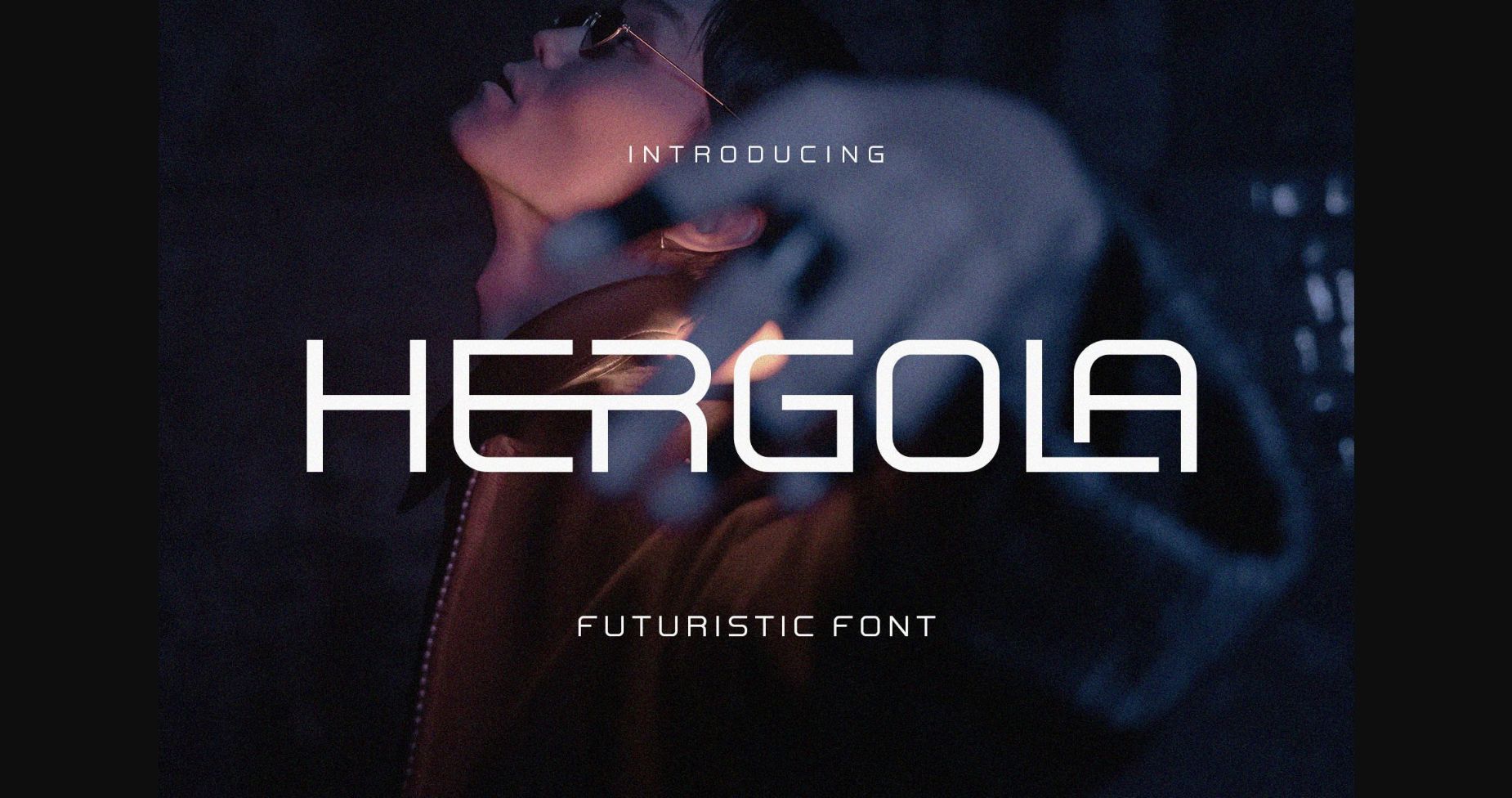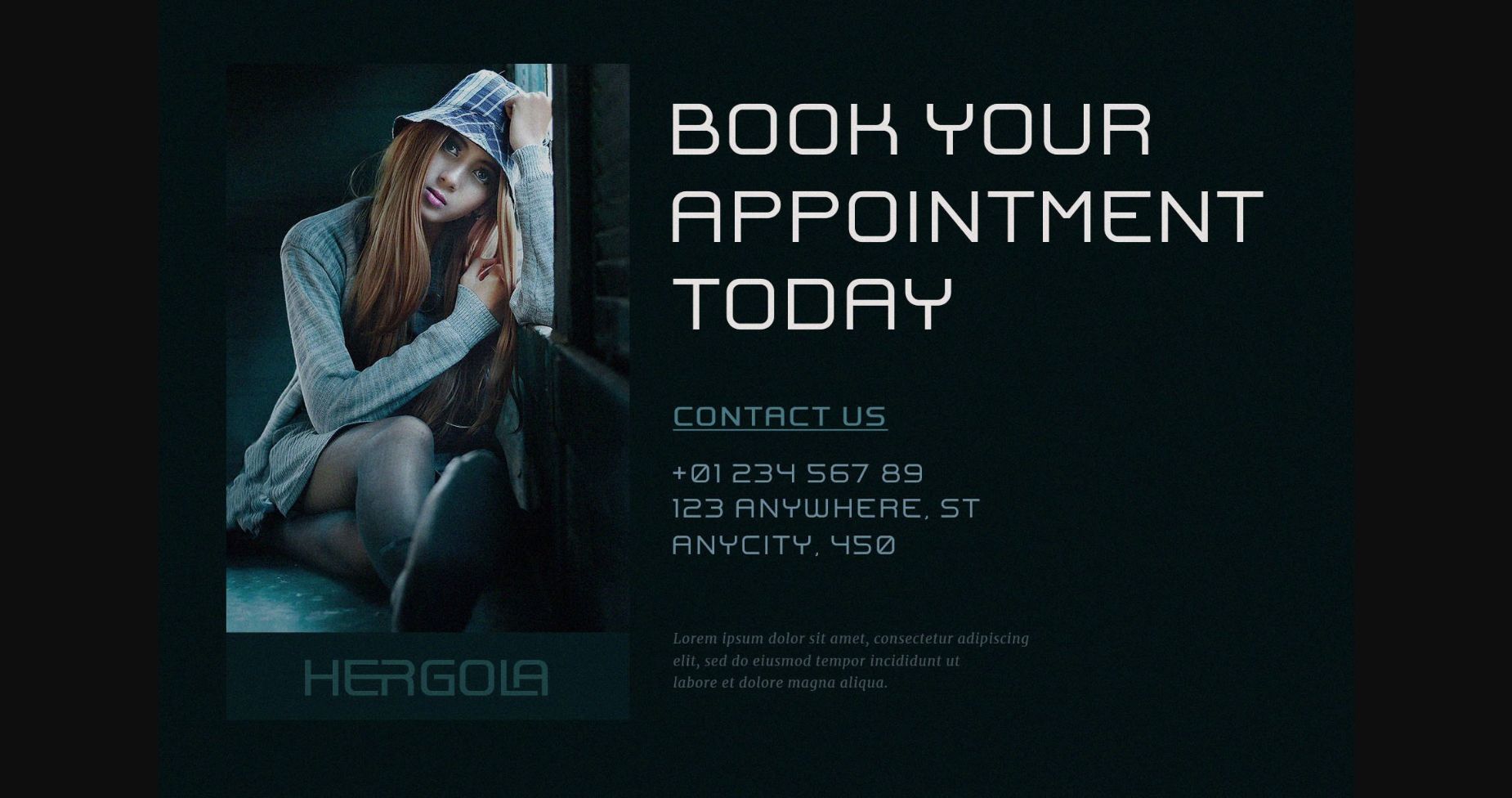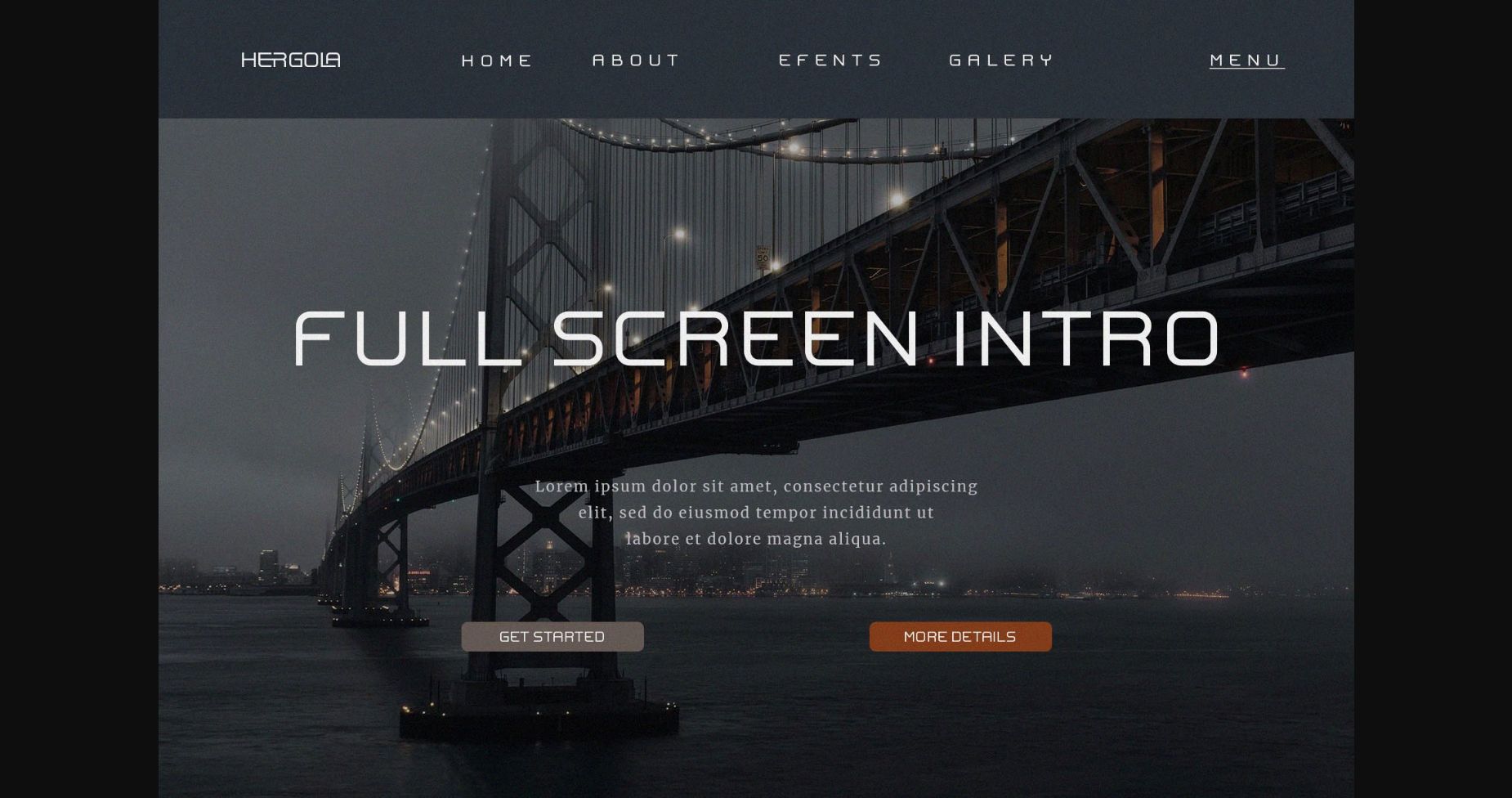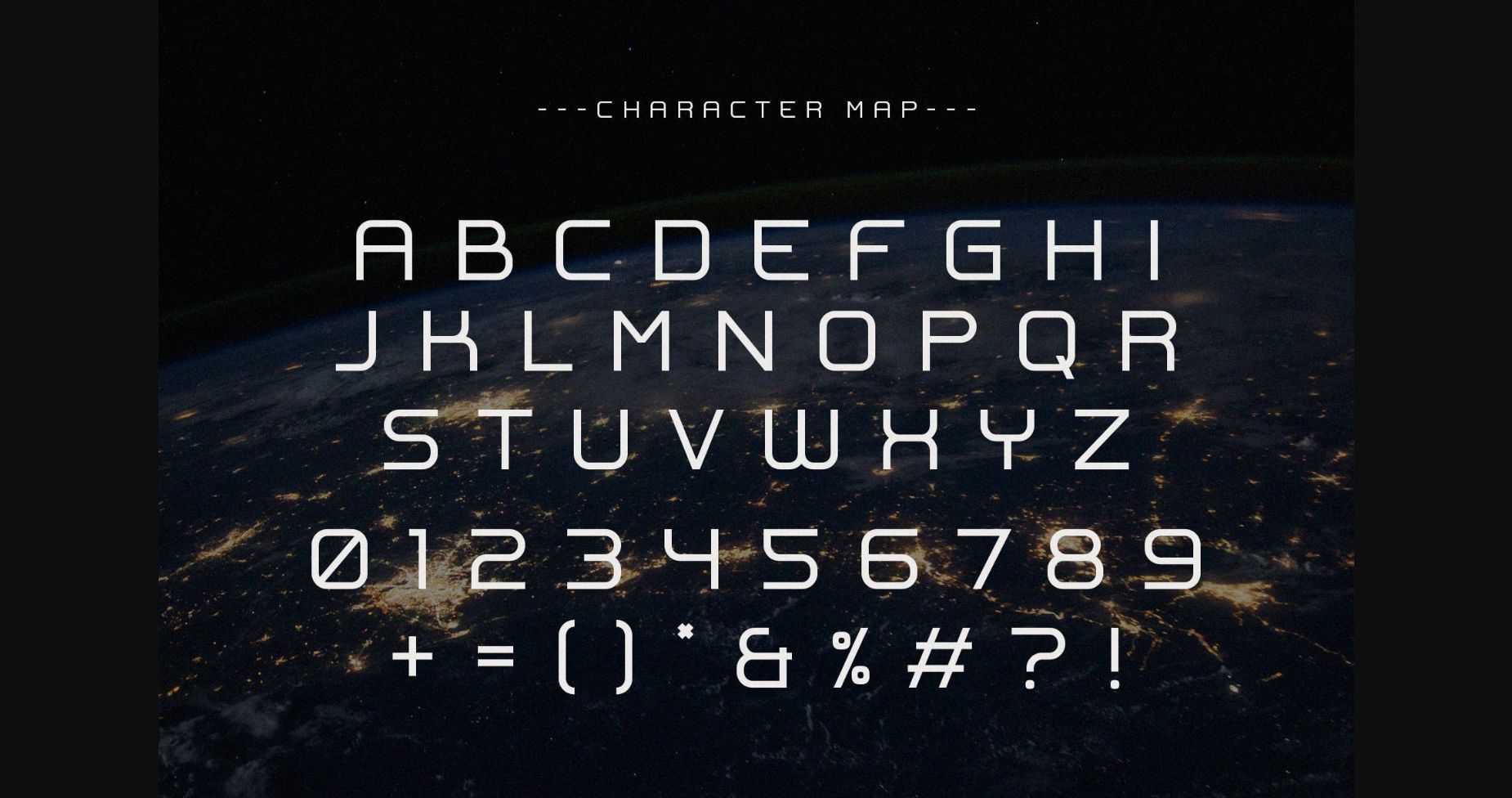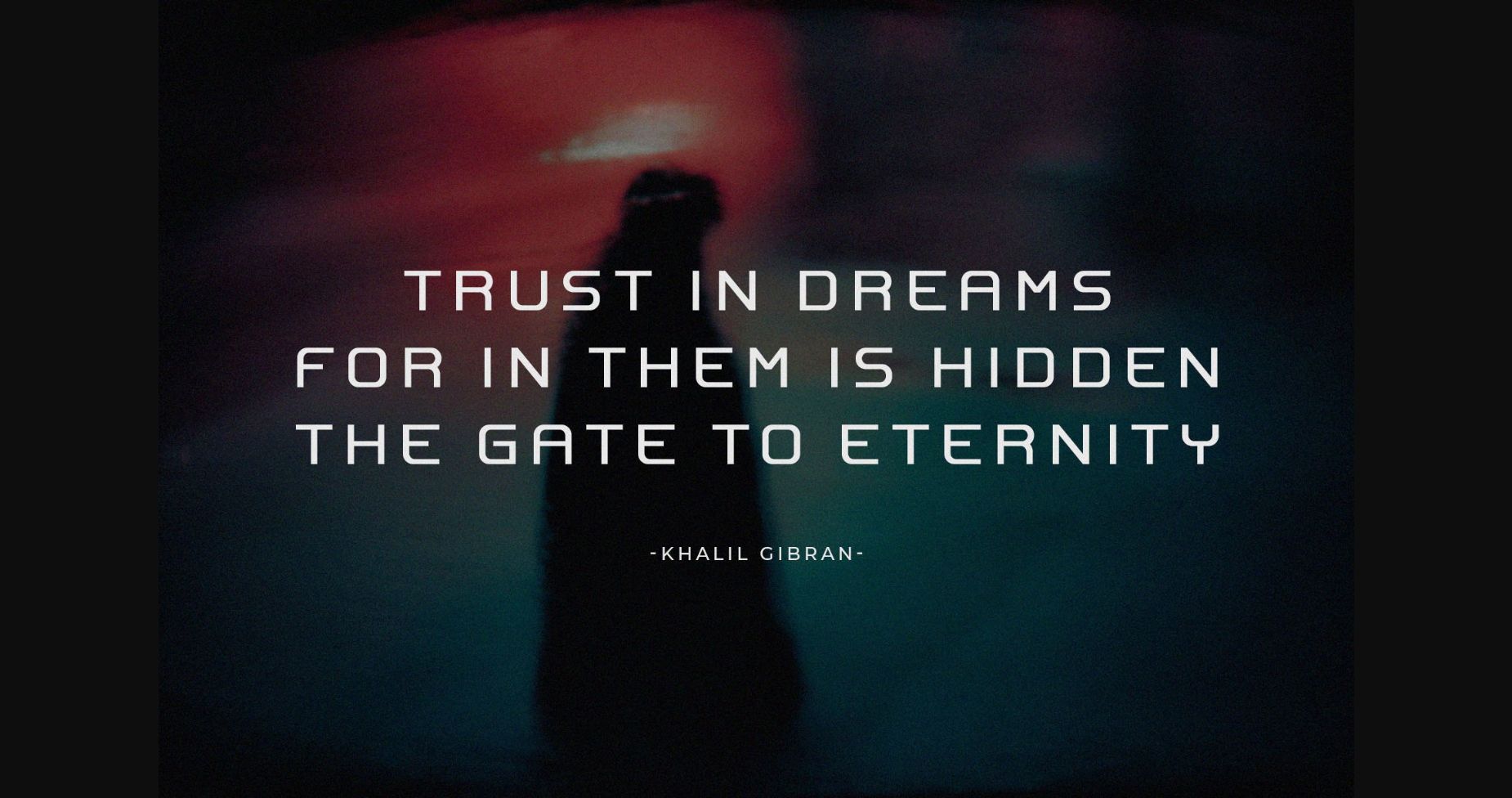
HomeSans Serif FontsHergola Font Sans Serif Fonts Hergola Font FacebookXPinterestWhatsApp 1 of 7 ... Hergola Font Poster 2... Hergola Font Poster 3... Hergola Font Poster 4... Hergola Font Poster 5... Hergola Font Poster 6... Hergola Font Poster 7... About Hergola Font Hergola is a modern and futuristic sans serif font. Add it to any of your creative projects, and it will seduce your audience with its style and form. DOWNLOAD NOW People also explored Donna Bodoni Baxter’s Slab Font Bright Sight Font Lastinger Font Sweethearts Font Cutyle Script Font Ramen Ichikaru Font Sublimation Font Parsley Font 265 0 TagsHergolaHergola Font Previous articleStorylona FontNext articleMonoprice Font LEAVE A REPLY Cancel reply Comment: Please enter your comment! Name:* Please enter your name here Email:* You have entered an incorrect email address! Please enter your email address here Website: Save my name, email, and website in this browser for the next time I comment. Personal Use Free Love Heart Personal Use Free Read more about this font Setta Personal Use Free Read more about this font The Winter Personal Use Free Read more about this font Propaniac Personal Use Free Read more about this font BLOG Free Fonts Risk: Why Free Fonts Can Be Dangerous for Designers Free Fonts Risk: Why Free Fonts Can Be Dangerous for Designers Using free fonts is a common practice in web and graphic design. However, the... How to Install and Use Fonts on Windows, macOS, and Web Projects Free vs Paid Fonts: Why Investing in Premium Fonts Is Worth It Top 7 Google Fonts Alternatives for Faster and Privacy-Friendly Web Design (2025)